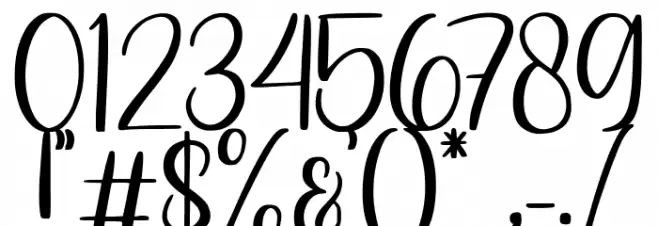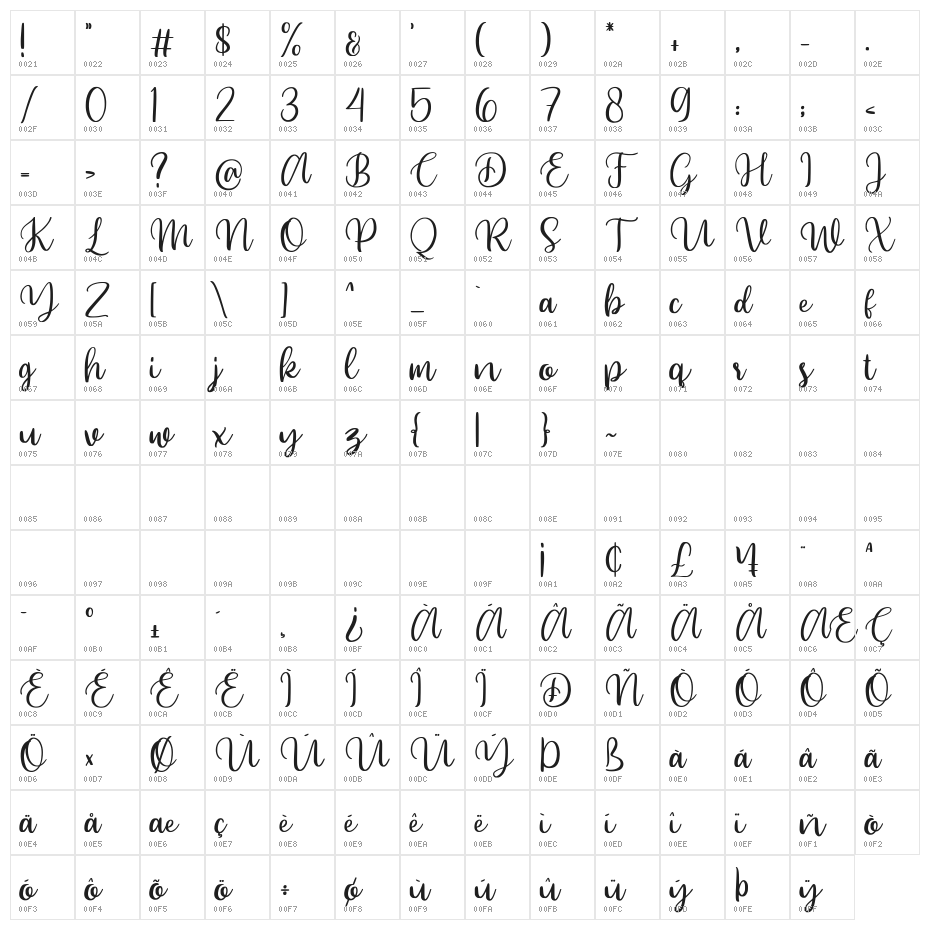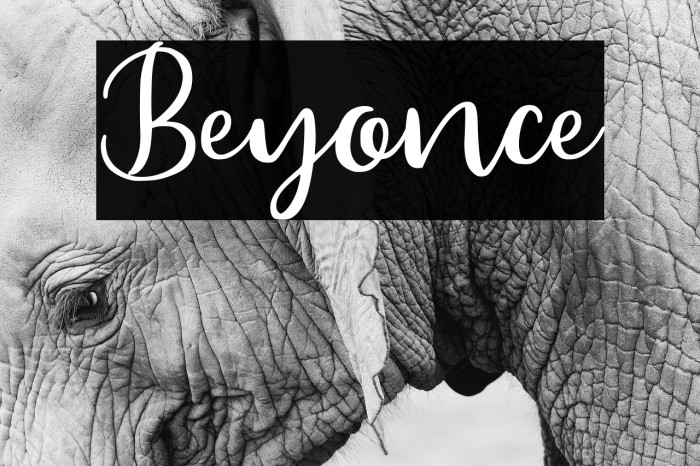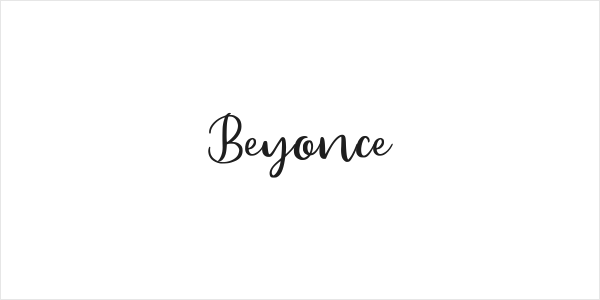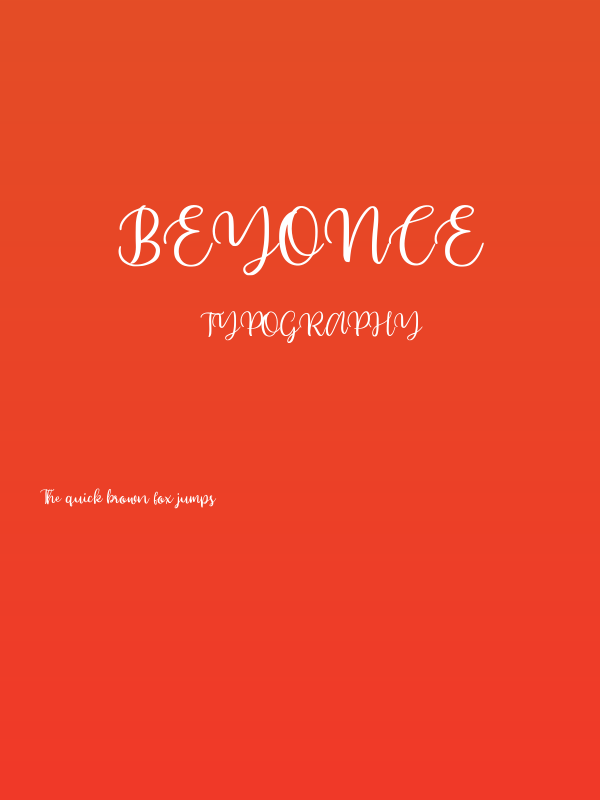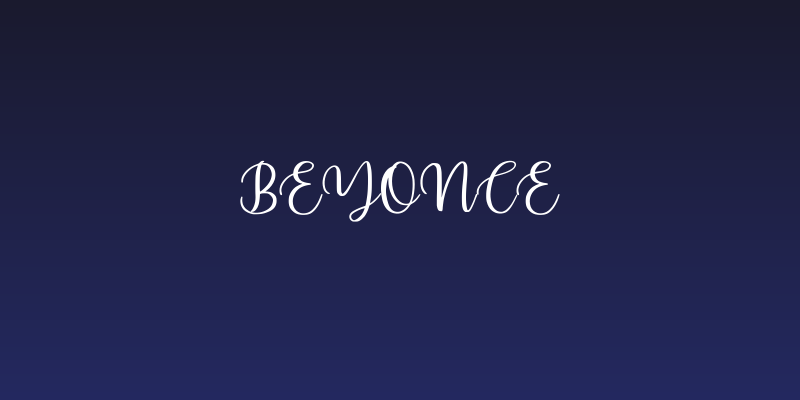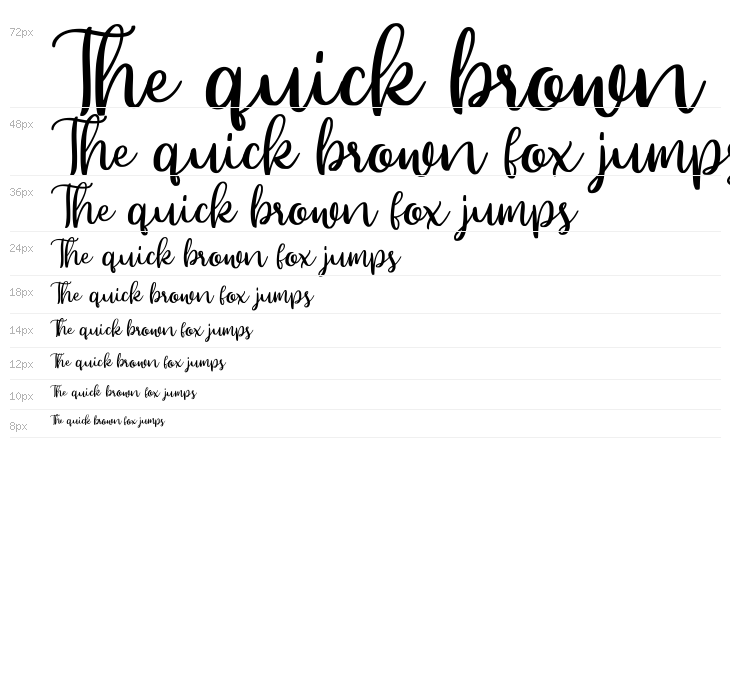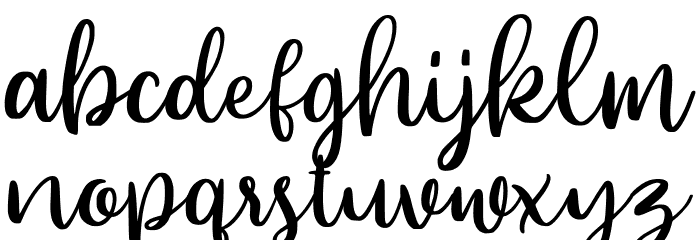
Beyonce Font
This font features a lively and flowing script style, characterized by its elegant and smooth curves. The uppercase letters exhibit a graceful, cursive form with a slight slant, while the lowercase letters maintain a consistent, connected flow. The numerals are bold and rounded, complementing the overall script aesthetic. Special characters are designed with the same fluidity, ensuring a cohesive look across all glyphs. This font exudes a sense of sophistication and charm, making it ideal for projects that require a personal and artistic touch.
| Proposed Projects | Ideal for wedding invitations, greeting cards, branding, and social media graphics. |